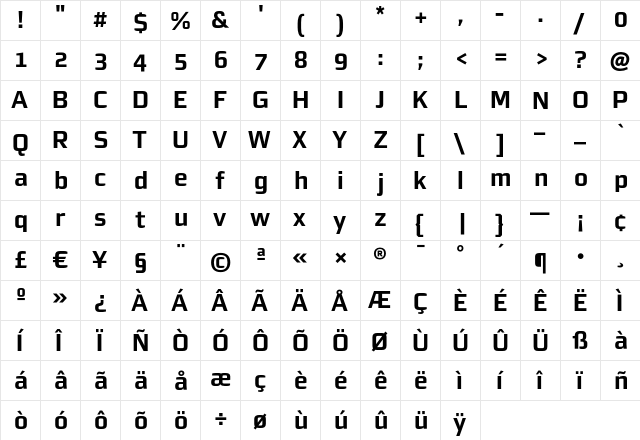
MorganSnOffice Bold Font Preview
MorganSnOffice Bold
MorganSnOffice Bold Font Details
Design Context for MorganSnOffice Typeface
MorganSnOffice offers clean, dependable letterforms without strong stylistic allegiance, making it a practical choice for designers who need flexibility. The heavy weight commands attention and anchors typographic hierarchies.